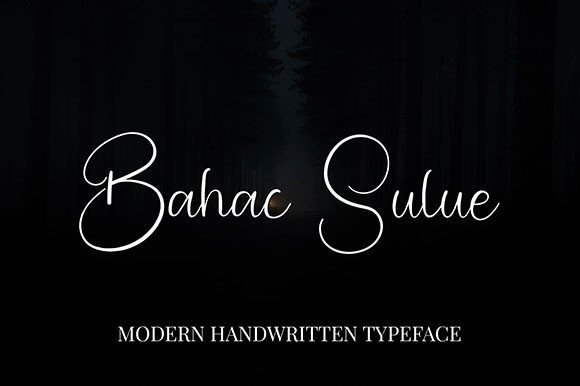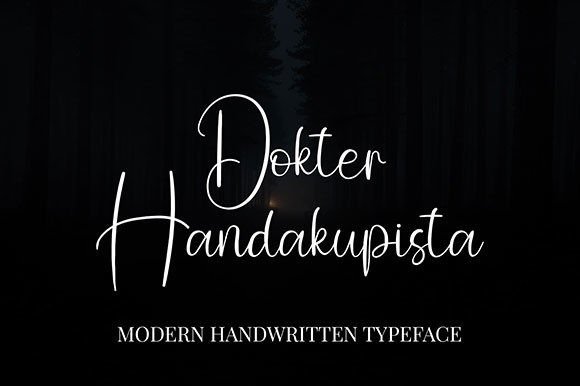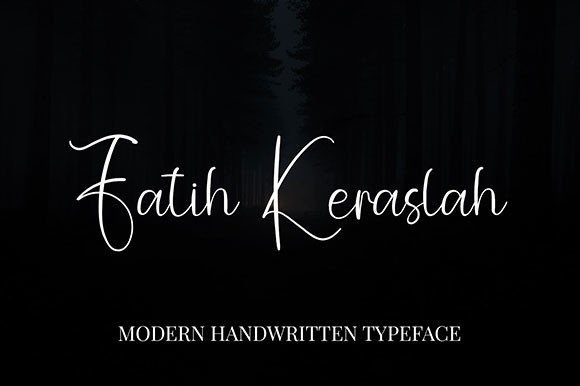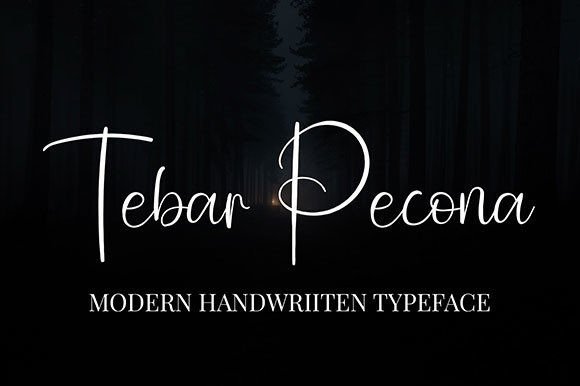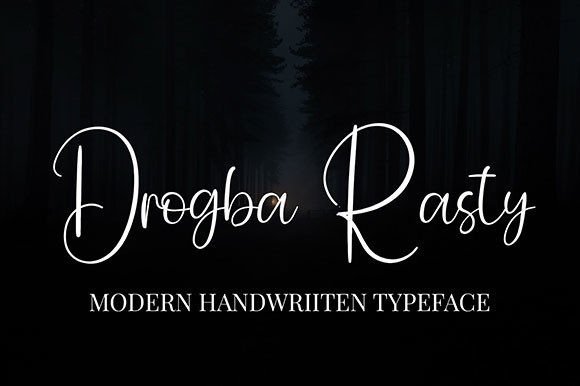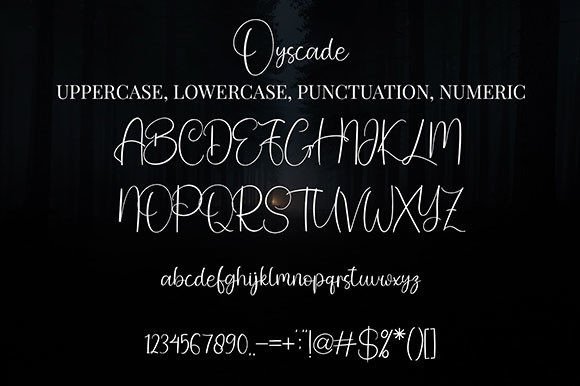
Introduction to Oyscade Font
As designers, we’ve all been there – staring at a blank page, searching for the perfect font to bring our creative vision to life. It’s that moment of pure excitement when you stumble upon a font that just clicks, and you know it’s the one. For those who are about to experience this thrill, we’re excited to introduce you to the charming Oyscade Font, a high-quality design resource that’s sure to elevate your next creative project.
With its elegant script style, Oyscade Font is perfect for a wide range of applications, from quotes and logos to blog headers, posters, and even fashion designs. Whether you’re looking for a free download or a paid option with a transparent background, this versatile font is sure to meet your needs and exceed your expectations.
As a valuable addition to any designer’s toolkit, Oyscade Font offers a level of sophistication and style that’s hard to find in other fonts. Its high-quality design makes it an ideal choice for those who demand the best for their creative projects, and we’re confident that you’ll love it just as much as we do.
Key Features of Oyscade Font
- Large character set, including uppercase and lowercase letters, numbers, and special characters, making it versatile for various applications.
- Designed with a unique, modern aesthetic, setting it apart from other fonts and adding a touch of creativity to any project.
Honest Review: Oyscade Font
I recently had the chance to work with the Oyscade Font, and I must say it’s a great addition to any designer’s toolkit. One of the things that stands out is the high quality of the font – it’s crisp and clean, with a beautiful transparent background that makes it perfect for use on images and graphics.
- It’s a great choice for titles and headings, adding a touch of elegance and sophistication to any design.
- It may not be the best choice for body text, as it can be a bit difficult to read at smaller font sizes.
Overall, I’m really impressed with the Oyscade Font. It’s a great design resource that’s perfect for creative projects, and I would definitely recommend it to fellow designers. With a little experimentation and patience, you can achieve some amazing results with this font.
Designing with Oyscade Font
When using Oyscade Font, keep in mind that it has a transparent background, making it perfect for creative projects. You can use it to add a touch of elegance to your designs. Also, ensure that you have a high-quality image or background to complement the font.
Oyscade Font is commonly used in design projects that require a unique and elegant touch. Some common use cases include wedding invitations, business cards, and branding materials.